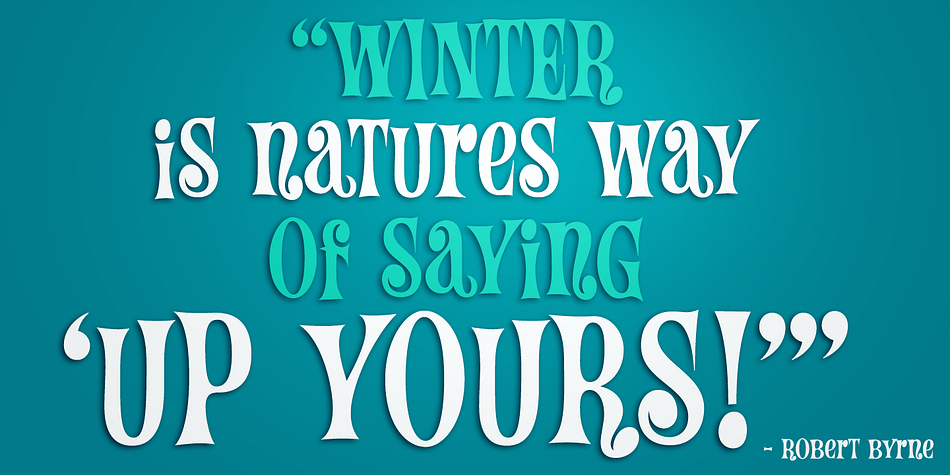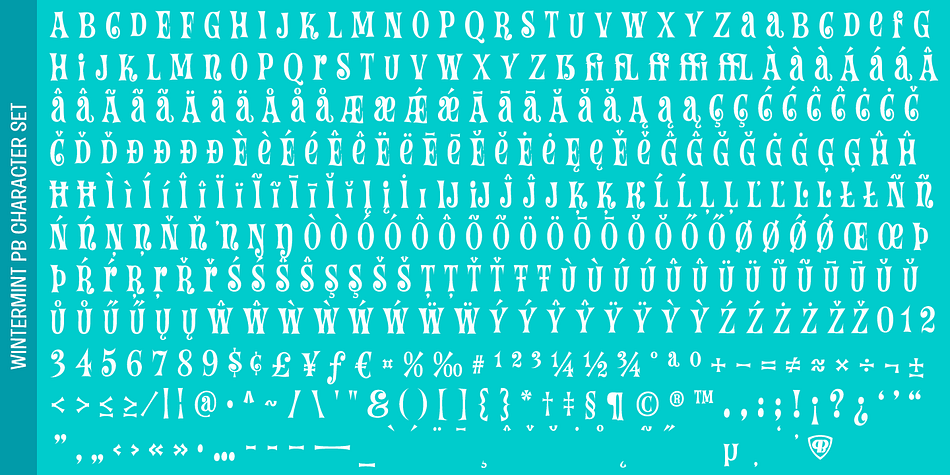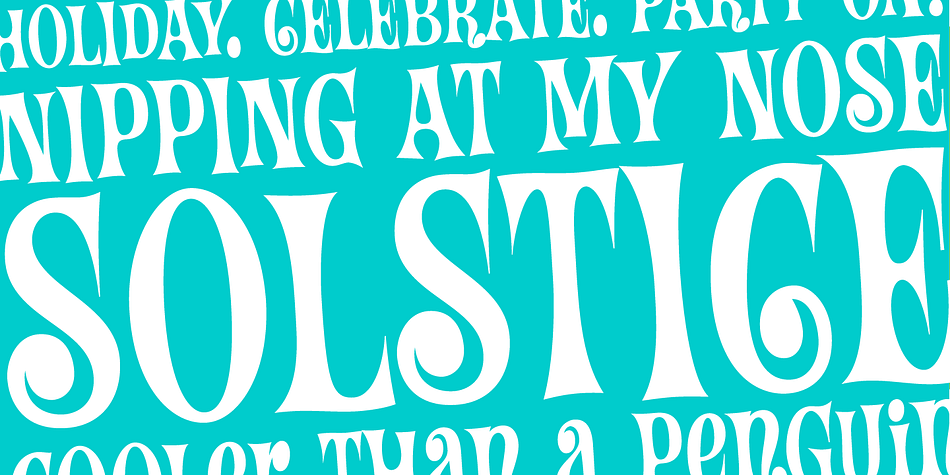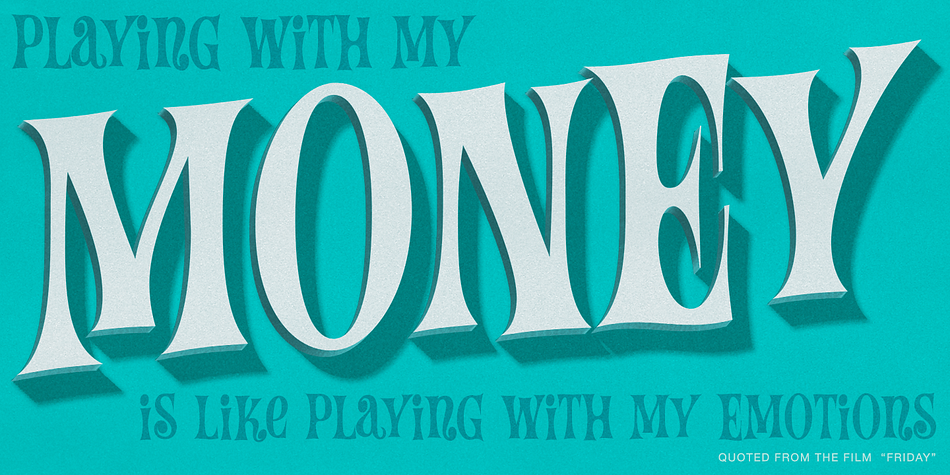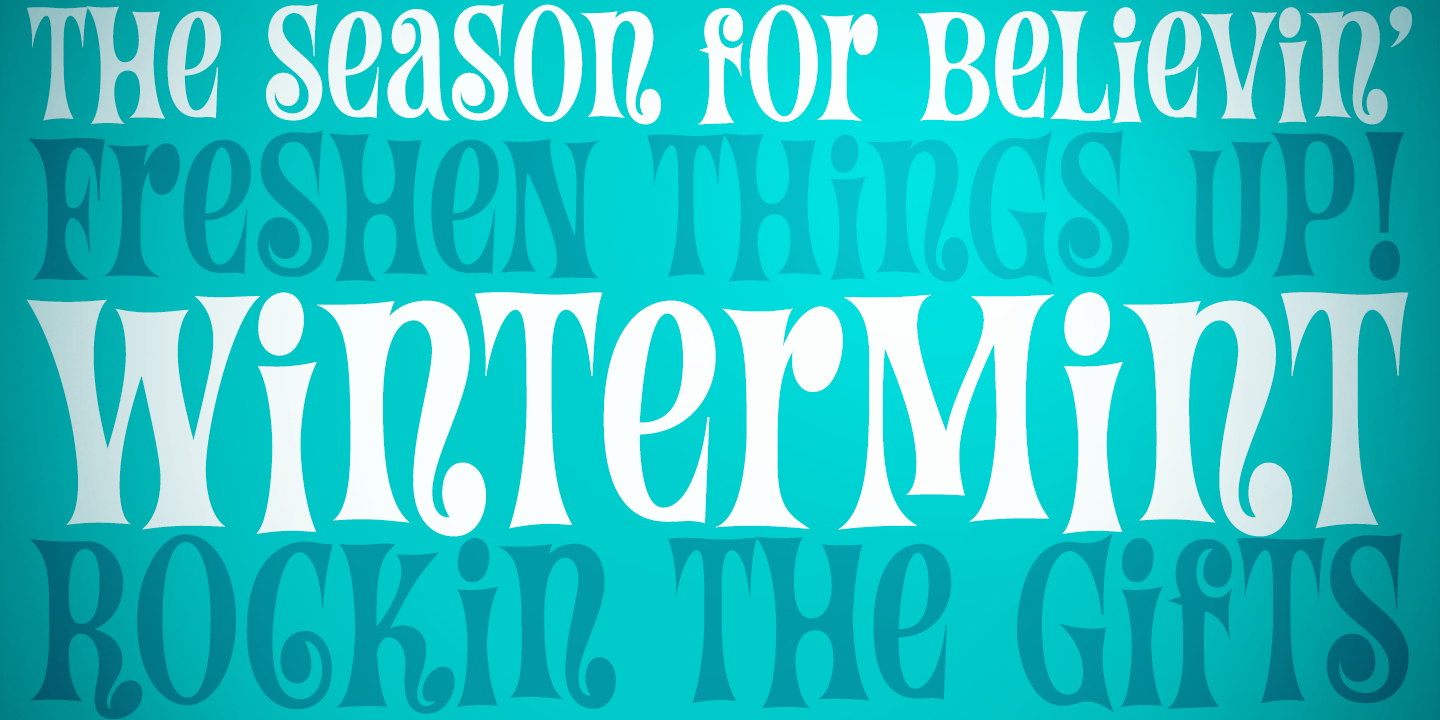
Designed by Phil Bracco, Wintermint PB is a display sans and art nouveau font published by Pink Broccoli.
A funtastic and playful typestyle, Wintermint started as a digitization of a film typeface called Lori by LetterGraphics. This font is filled with bounce and liveliness taken from its original limited character set and fleshed out to a fully functional typeface.
Flare serifs along with the occasional weird and wonderful curl gives this typeface a festive holiday vibe, but it could easily blend into a psychedelic design space, or just an all out wacky groove. Give it a spin, and see where Wintermint takes you.